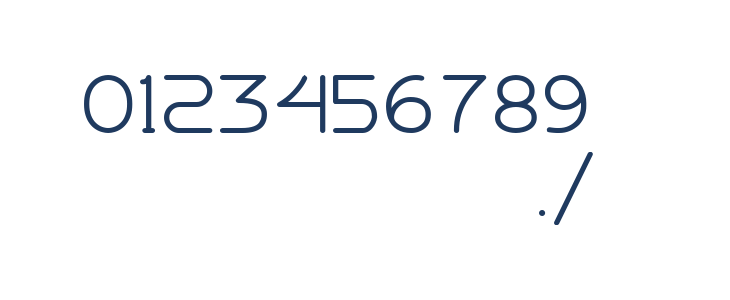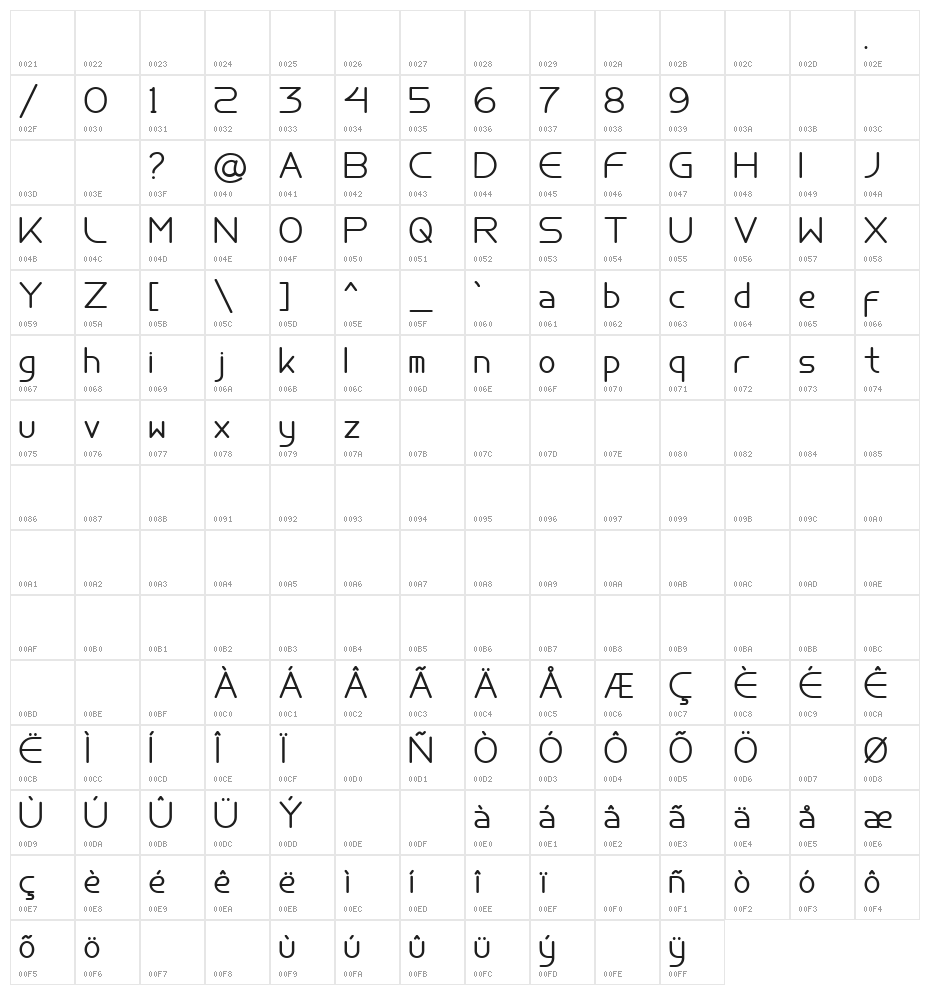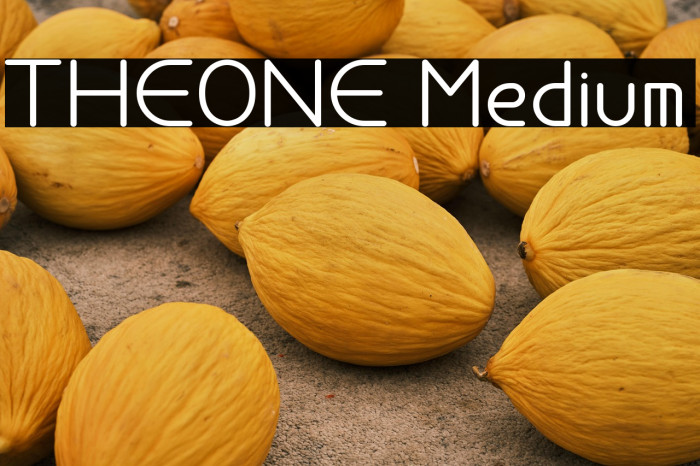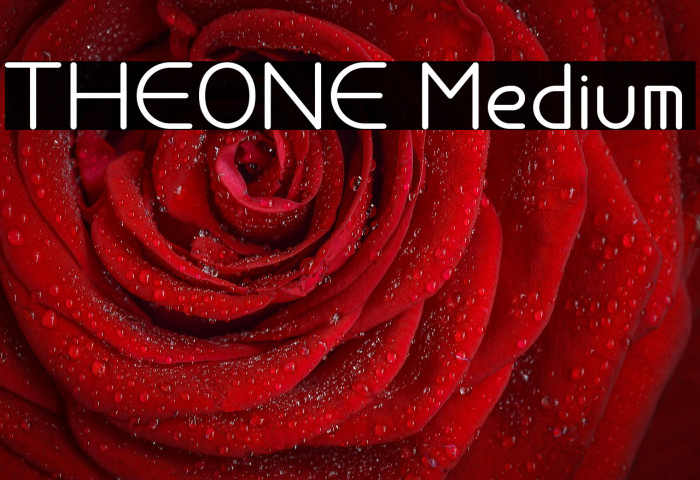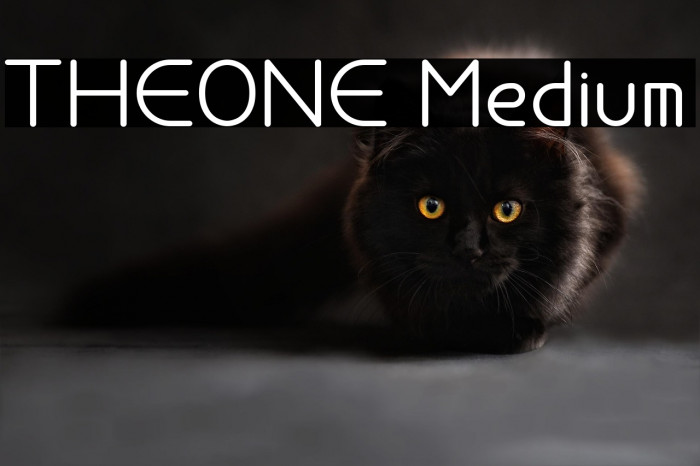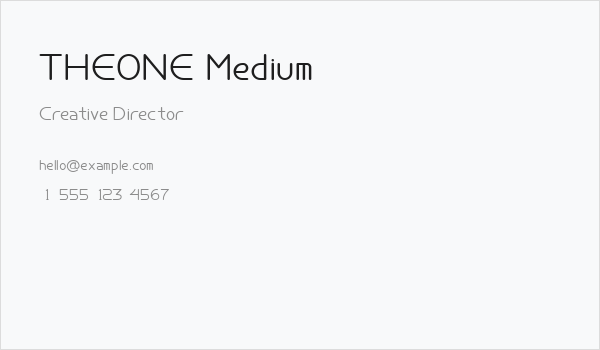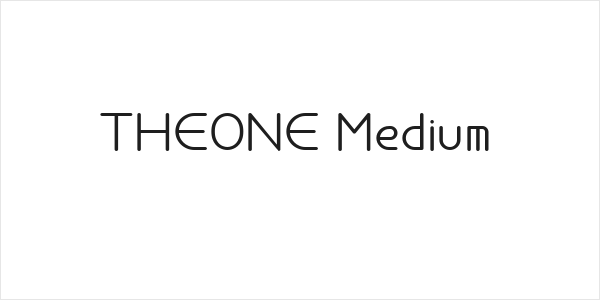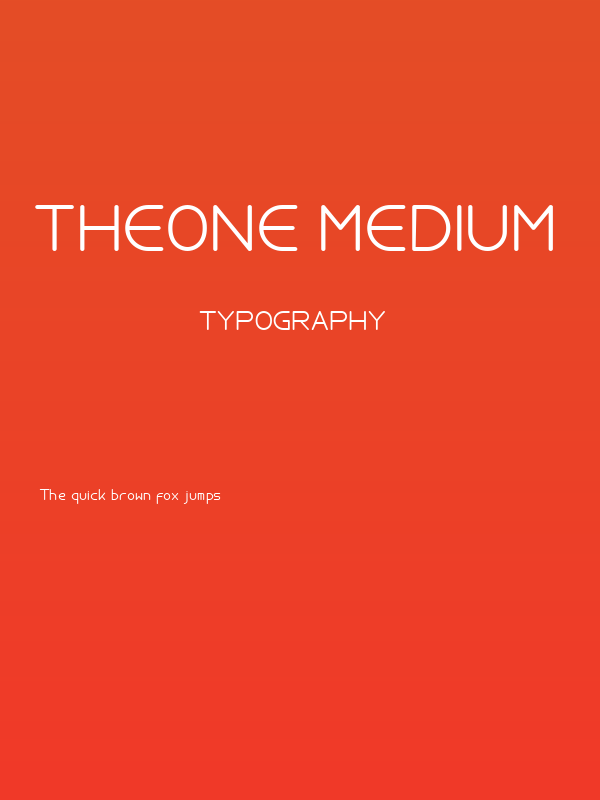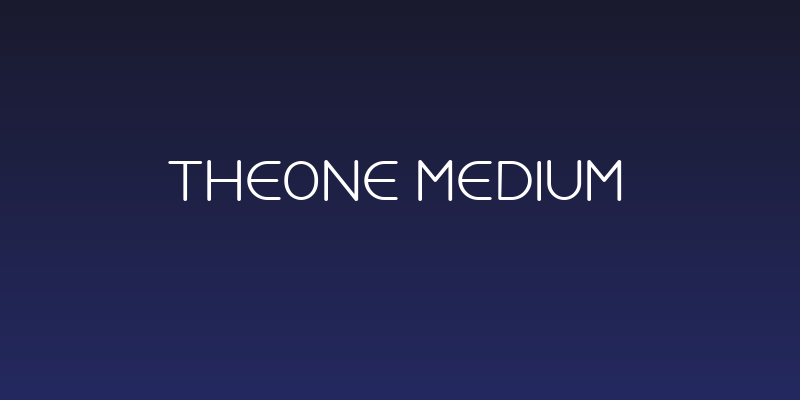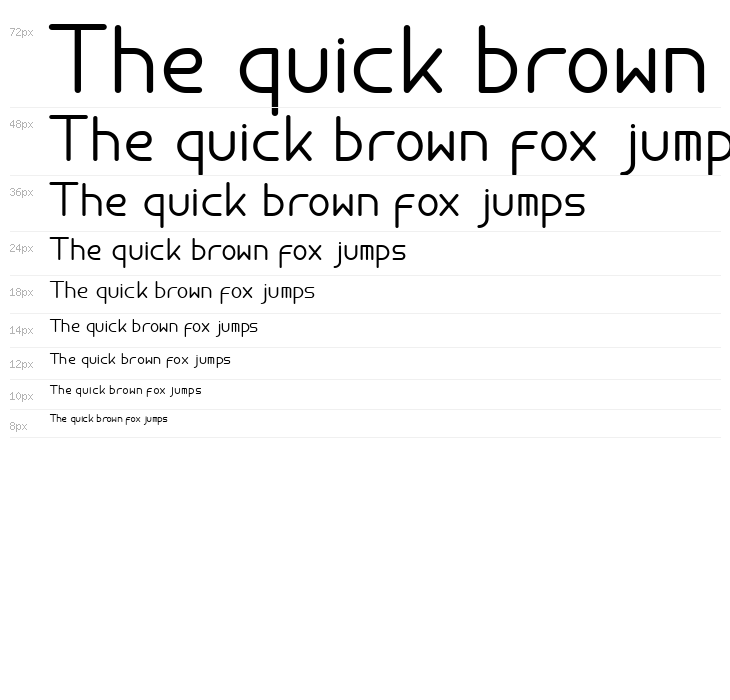
THEONE Medium Font
THEONE Medium Description
This font features a sleek, modern design with rounded edges and a clean, geometric structure. The uppercase letters are uniform in height, while the lowercase letters maintain a consistent x-height, providing a harmonious balance. The numerals are distinct and easy to read, with a contemporary style that complements the alphabetic characters. The special characters are designed with the same modern aesthetic, ensuring consistency throughout. This font is versatile, suitable for a variety of digital and print applications, offering a fresh and professional appearance.